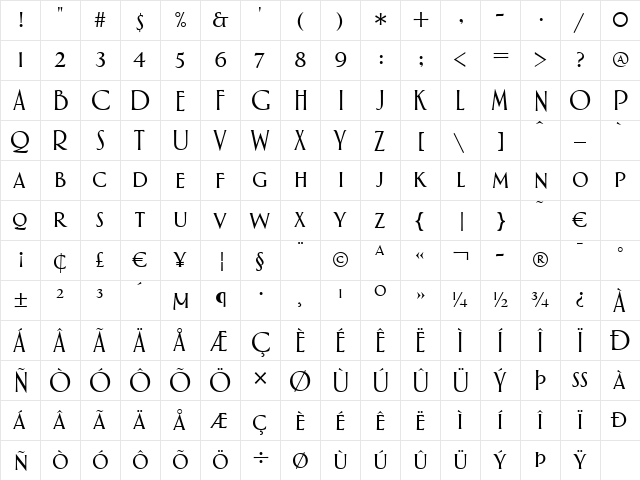
Aphasia BT Roman
Design Context for Aphasia BT Typeface
Aphasia BT takes a measured approach to typography — its balanced proportions and neutral character make it a reliable workhorse for both digital and print work.
Pro Tip: Use Aphasia BT in both headline and body roles to test its range before committing to a single application.